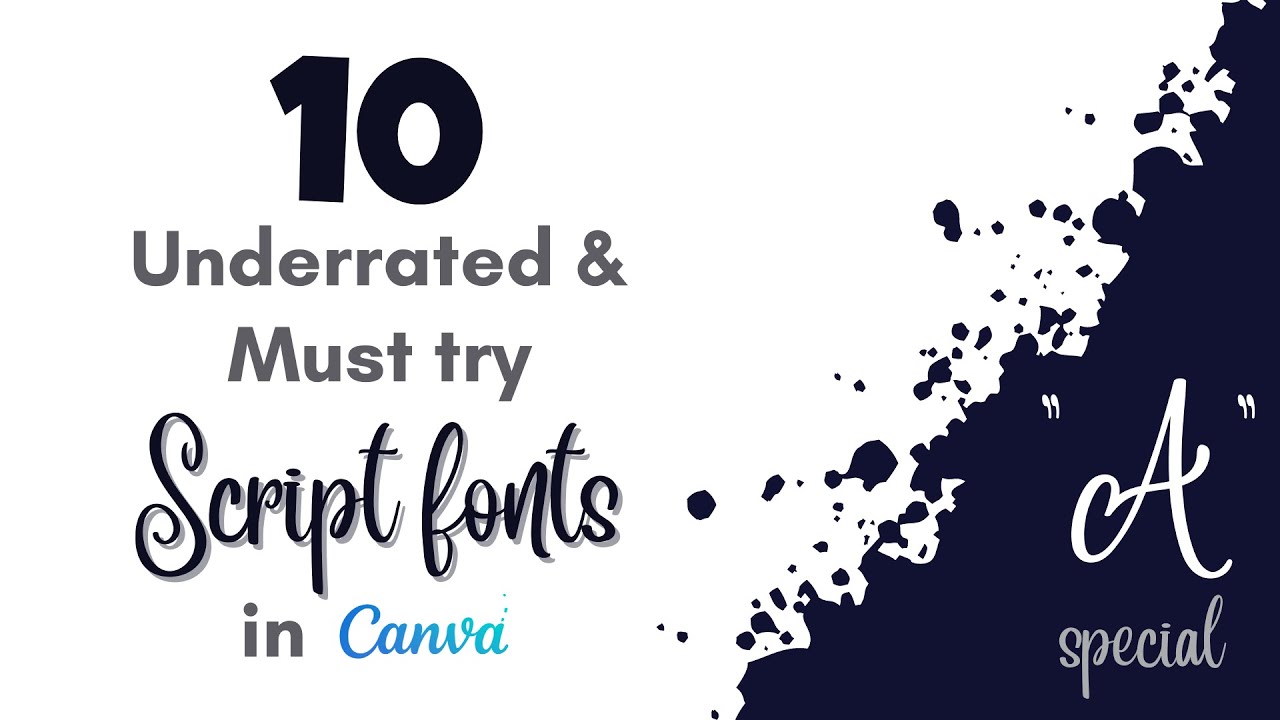
Favorite Canva Script Fonts
301 Moved Permanently In this article, we’ve compiled a list of the 20 most versatile and beautiful script fonts available on canva. these fonts can elevate your work and help you create extraordinary designs that leave a lasting impression on your audience. so, let’s dive in and discover the perfect match for your design needs! 1. badhorse script. Read along for the ultimate list of canva free & pro cursive, script and decorative fonts you should know about to create scroll stopping social media marketing and design graphics.
The 8 Best Handwriting Script Fonts On Canva Cursive Fonts Script Elegant and expressive—find canva’s best script fonts for invitations, branding, and handwritten style projects. Say goodbye to font frustration! find 55 free canva script fonts perfect for designing beautiful, profitable digital products. Since most people are using canva these days (i’ve been using it more lately, but i’m still not convinced it’s better than affinity publisher!), i thought i’d share some new (to me) cursive fonts i’ve discovered in canva. Unleash your creativity with free canva script fonts! perfect for designing stunning invitations, logos, and more!.
Favorite Canva Fonts Font Canva Lettering Graphic Design Fonts Since most people are using canva these days (i’ve been using it more lately, but i’m still not convinced it’s better than affinity publisher!), i thought i’d share some new (to me) cursive fonts i’ve discovered in canva. Unleash your creativity with free canva script fonts! perfect for designing stunning invitations, logos, and more!. Keep reading to find out my 24 top recommended free script fonts on canva, and save the graphic for future reference!. Looking for the best canva fonts for your designs? check out our ultimate font guide with aesthetic font combinations, fonts pairing ideas and tips for where to find the best cursive, handwritten and bold fonts within canva. In this article you will be presented with the absolute best handwriting fonts available in canva, hand picked by yours truly. since canva has both free and paid fonts, i have selected the best of both. personally, i decided long ago to become a canva pro user and i have not regretted that. Here are the 60 best cursive fonts in canva for free and paid users along with previews of exactly what you can expect from each font.